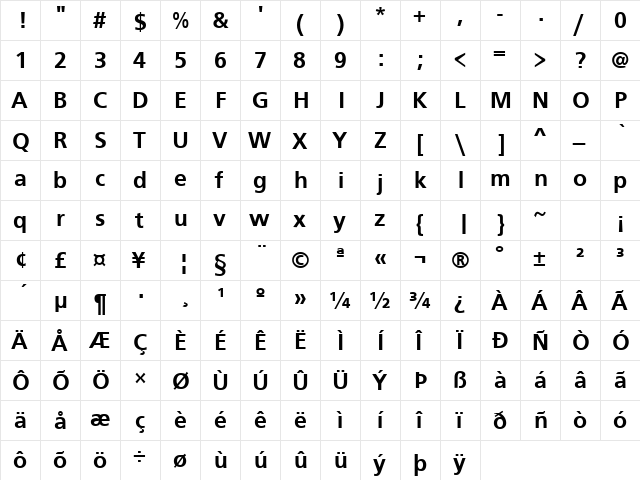
Frugal Sans Bold
Design Context for Frugal Sans Typeface
Frugal Sans offers clean, dependable letterforms without strong stylistic allegiance, making it a practical choice for designers who need flexibility. The heavy weight commands attention and anchors typographic hierarchies.
Pro Tip: Use Frugal Sans in both headline and body roles to test its range before committing to a single application.